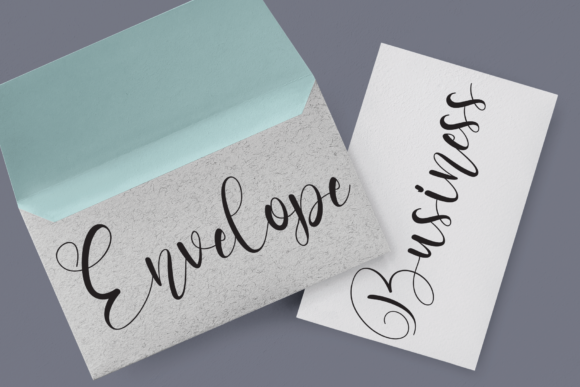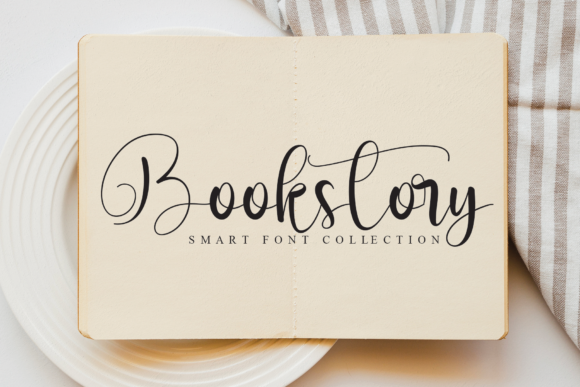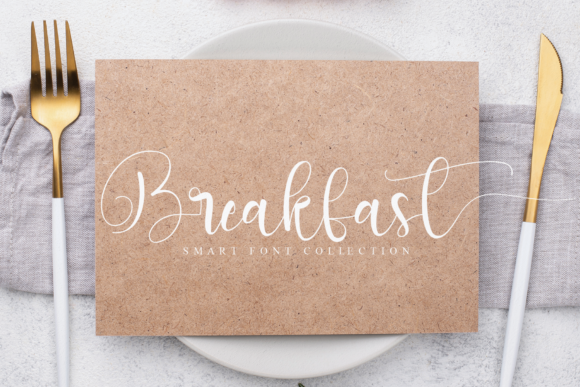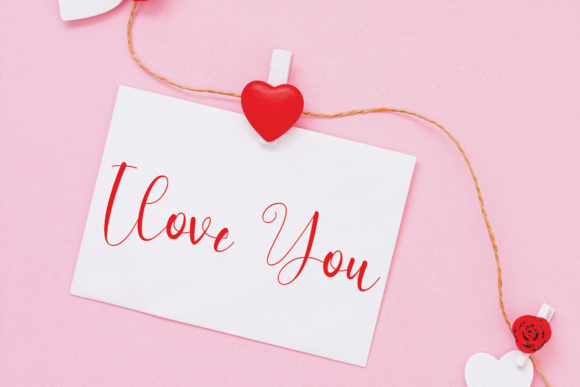
Elegant Font: Elevate Your Designs with Sophistication
Elegant is a beautiful script font that can instantly add a touch of sophistication to your creative projects. With its flowing lines and refined aesthetic, this font is perfect for designers and crafters looking to make their ideas stand out. In this article, we’ll explore the features and benefits of Elegant Font, and show you how to incorporate it into your designs to take them to the next level.
The Characteristics of Elegant Font
Elegant Font is a script font that exudes luxury and refinement. Its elegant lines and curves make it perfect for creating sophisticated and eye-catching designs. The font features:
- Flowing script style: Elegant Font has a beautiful, flowing script style that is reminiscent of traditional calligraphy.
- Refined aesthetic: The font has a refined and sophisticated aesthetic that is perfect for high-end designs.
- High legibility: Despite its elegant style, Elegant Font is highly legible, making it perfect for use in a variety of design applications.
Benefits of Using Elegant Font
There are many benefits to using Elegant Font in your designs. Some of the most significant advantages include:
- Instant sophistication: Elegant Font can instantly add a touch of sophistication to your designs, making them stand out from the crowd.
- Versatility: The font is highly versatile and can be used in a variety of design applications, from logos and branding to invitations and packaging.
How to Use Elegant Font in Your Designs
Using Elegant Font in your designs is easy. Here are a few tips to get you started:
- Pair with bold fonts: Pair Elegant Font with bold, sans-serif fonts to create a striking contrast that adds visual interest to your designs.
- Use for headings and titles: Elegant Font is perfect for use in headings and titles, where its elegant style can add a touch of sophistication to your designs.
- Experiment with colors: Experiment with different colors to find the perfect combination that complements your design and showcases Elegant Font to its fullest potential.
Elegant Font in Different Design Applications
Elegant Font can be used in a variety of design applications, including:
- Logos and branding: Elegant Font is perfect for use in logos and branding, where its sophisticated style can help to create a lasting impression.
- Invitations and stationery: The font is also perfect for use in invitations and stationery, where its elegant style can add a touch of refinement to your designs.
- Packaging and product design: Elegant Font can also be used in packaging and product design, where its sophisticated style can help to create a premium feel.